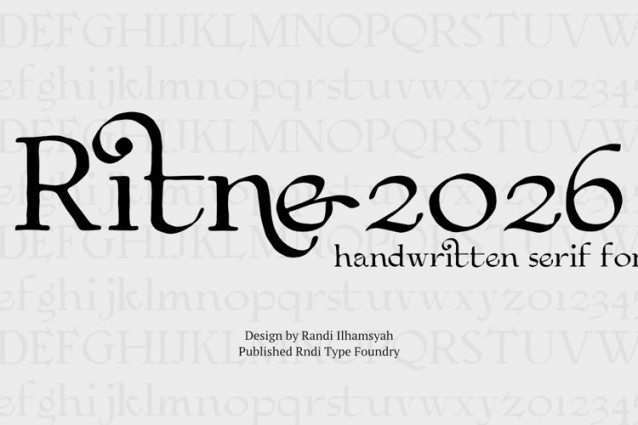
Ritne Font
Ritne Font is a sophisticated typeface that seamlessly blends the timeless structure of classic serifs with the fluid, artistic flair of modern calligraphy. Designed for creators who seek elegance and individuality, this font stands out with its unique character and rhythmic flow.